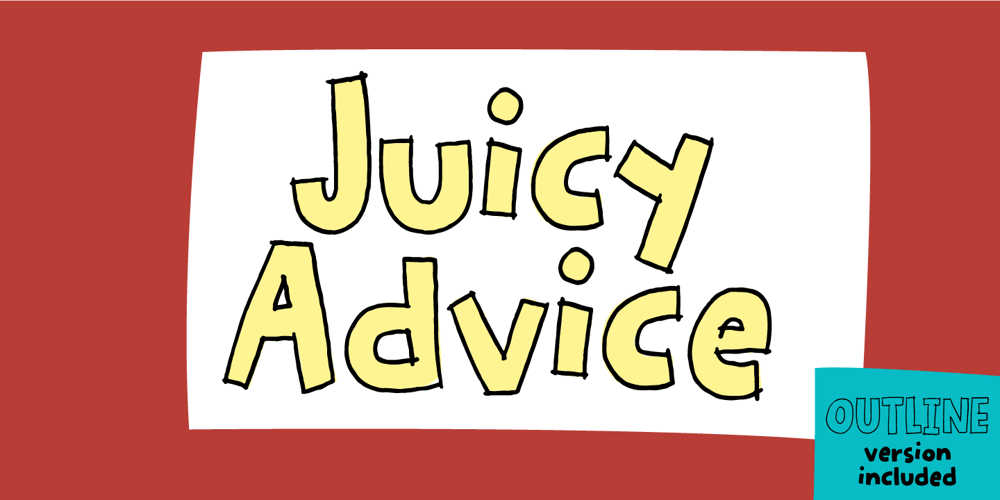
Juicy Advice Font Family was designed by Jakob Fischer and published by PizzaDude.dk. Juicy Advice contains 4 styles and family package options. To tell you the truth, I don’t know what a juicy advice is – other than I guess it’s something positive and maybe even helpful.Well, what I do know is that this Juicy Advice is positive, helpful and playful. It’s a handmade comic font, with an outline version to compliment the Regular version. The outline version is also handmade, but not entirely sticking to the boundaries of the shapes of the Regular version. This leaves the outline somewhat off, but deliberately in order to keep the authentic feeling.